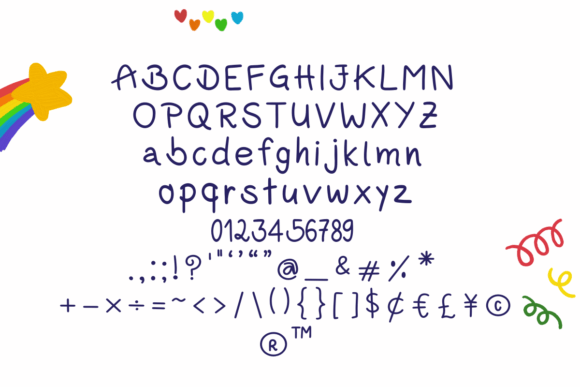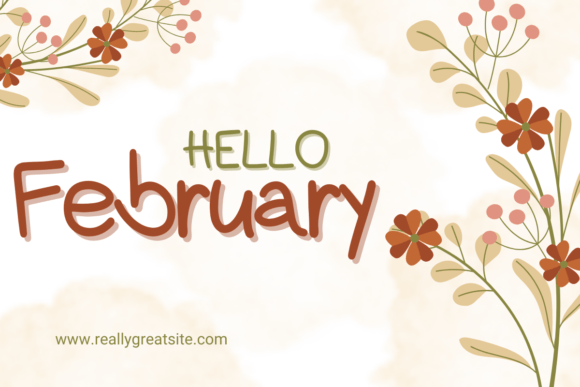
Introduction to Quind Font
Quind is a handwritten font.
You can use it for taking notes, writing a diary, or making greeting cards It can also be used for banners, content, mugs, cards, shirts, stationery, social media posts, and more.
Key Features of Quind Font